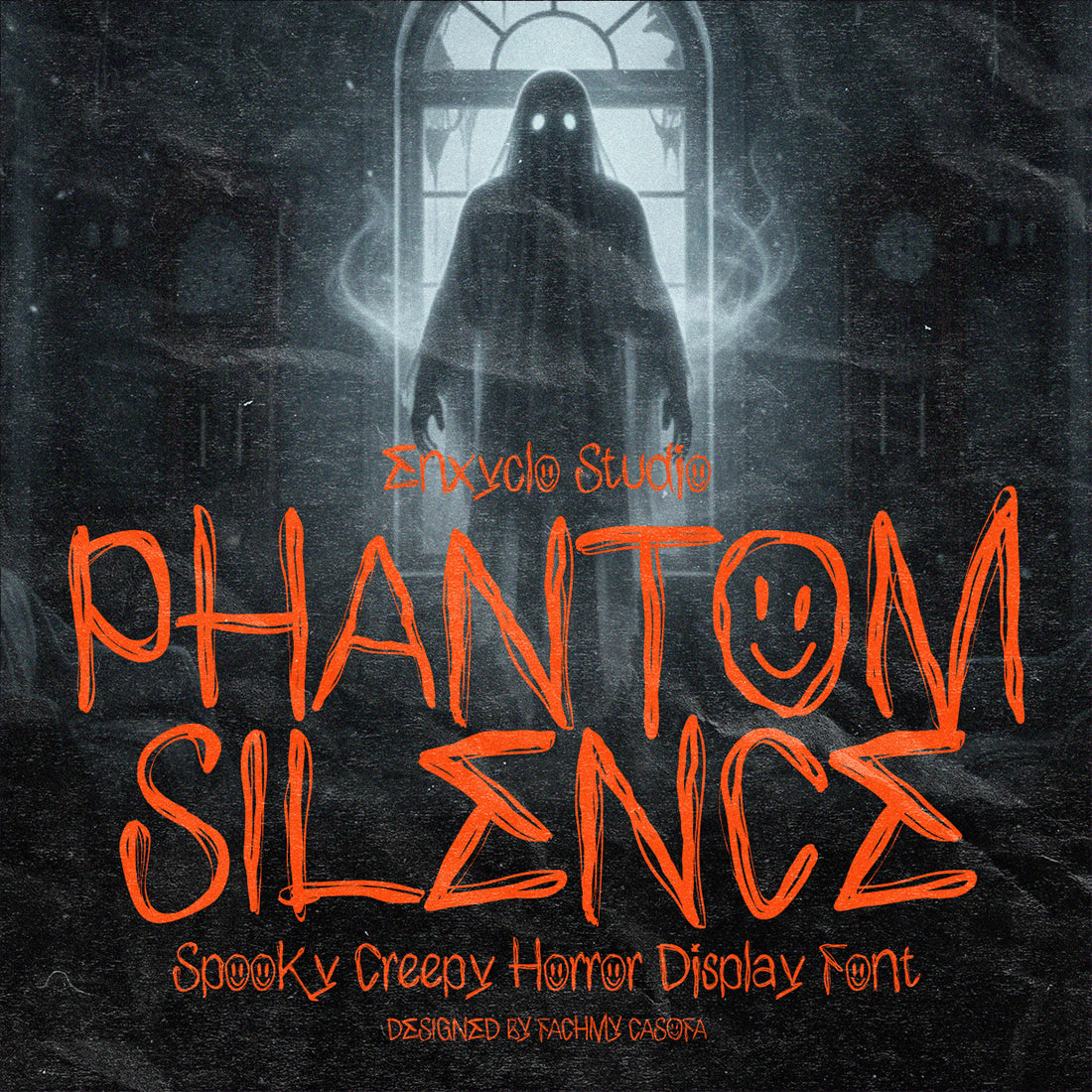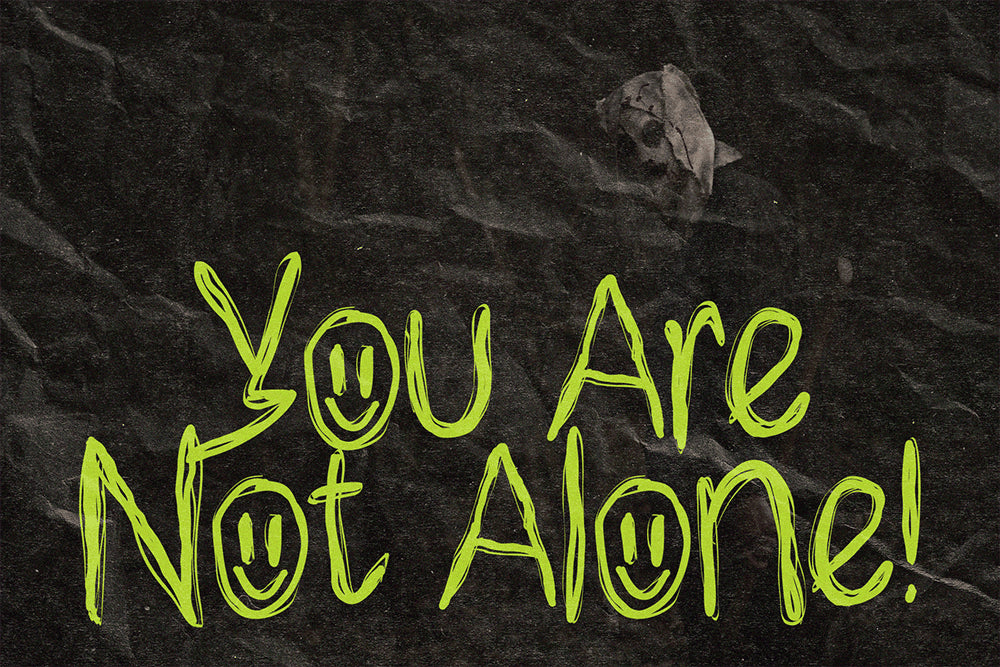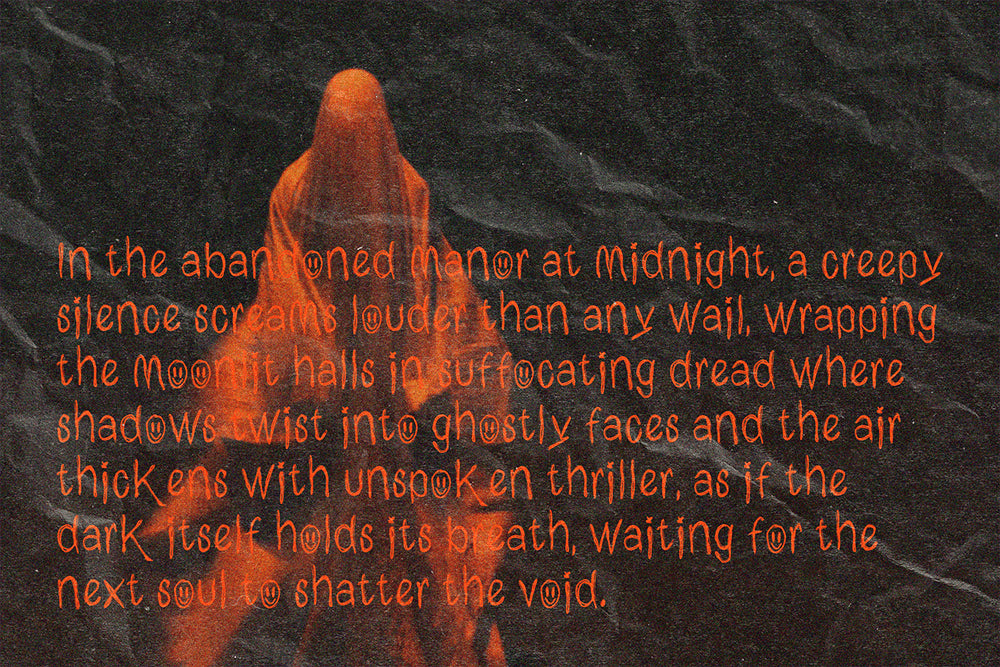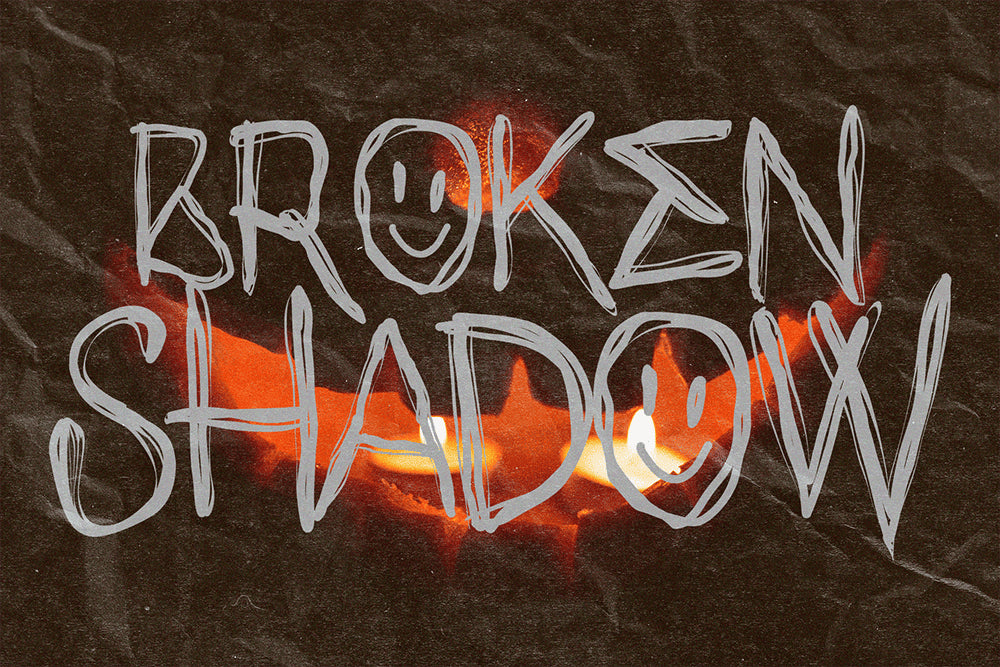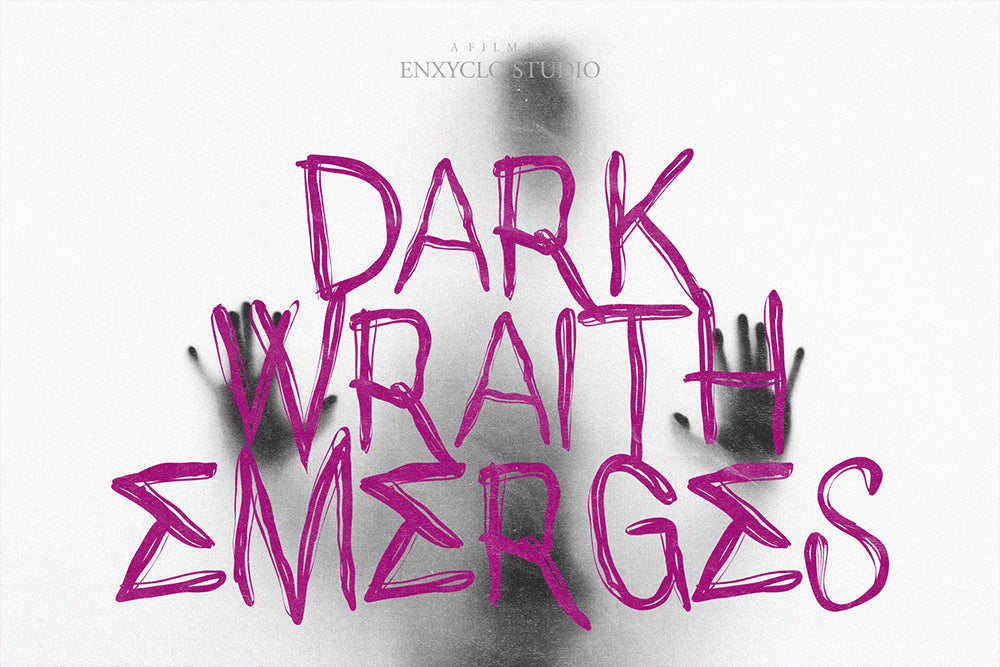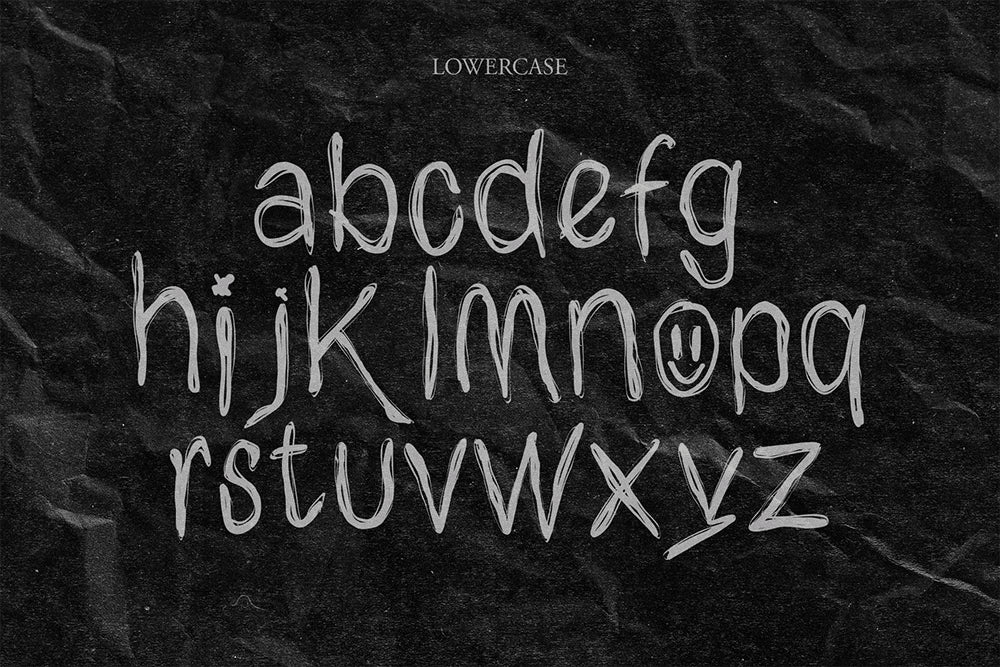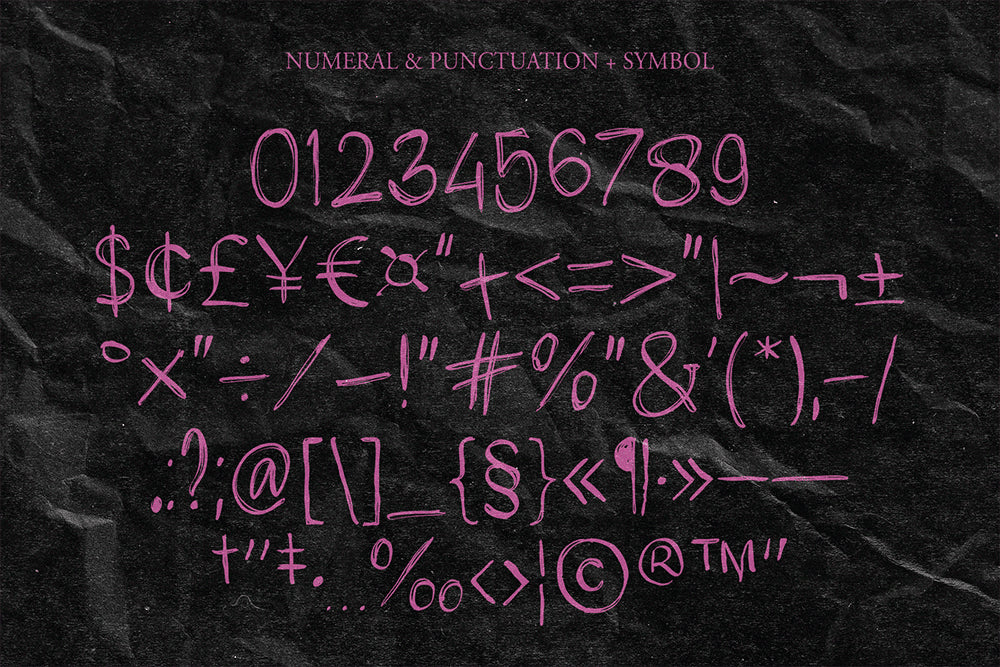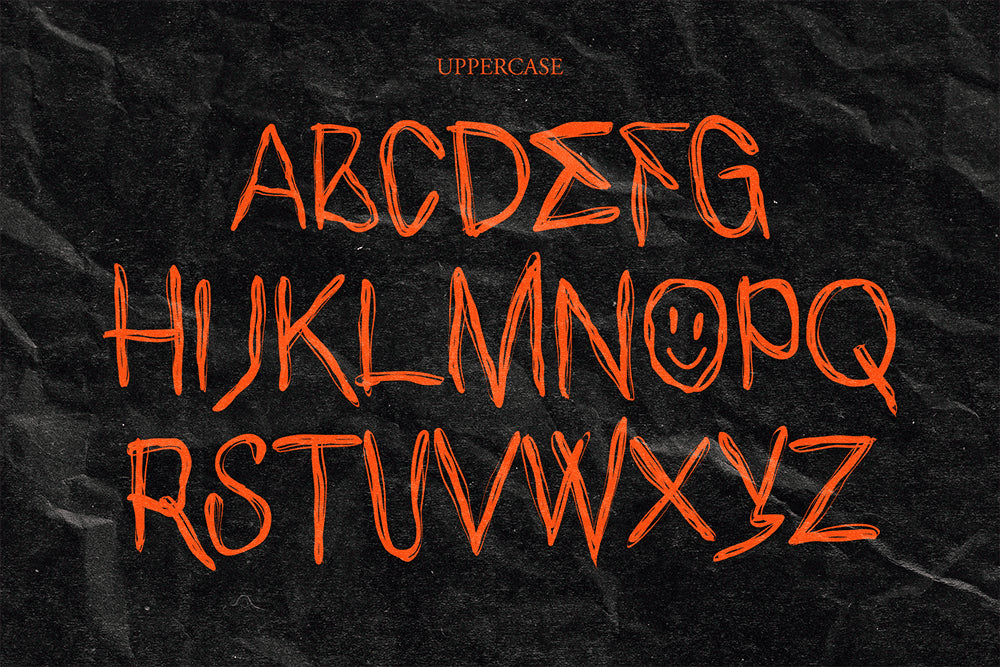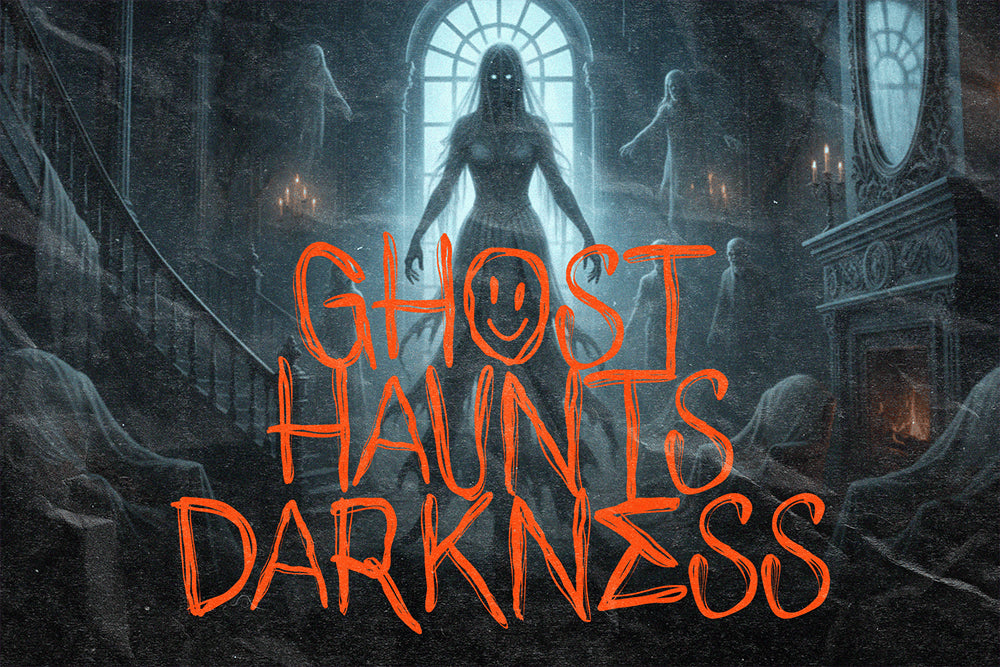
PHANTOM SILENCE — Creepy Font
PHANTOM SILENCE is a bold display typeface designed to convey an eerie atmosphere, featuring unique letterforms that enhance horror-themed projects. This versatile font includes True Type (TTF) and Open Type (OTF) formats, as well as Web Open Formats (WOFF1 & WOFF2), and supports uppercase, lowercase, numerals, punctuation, and symbols.